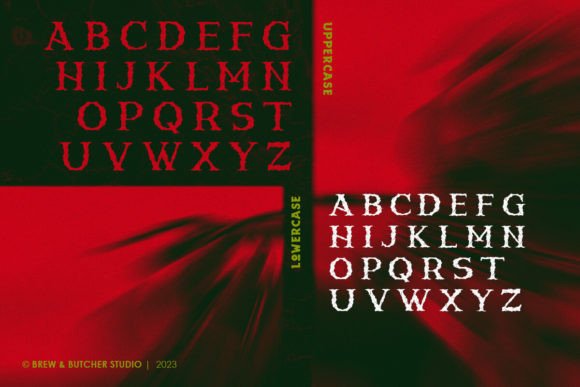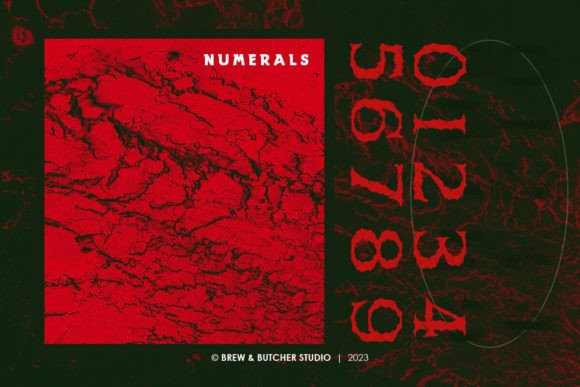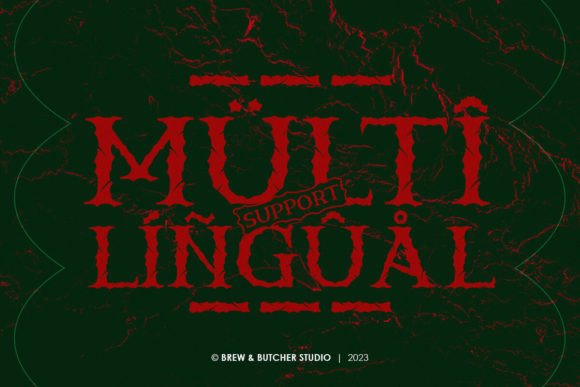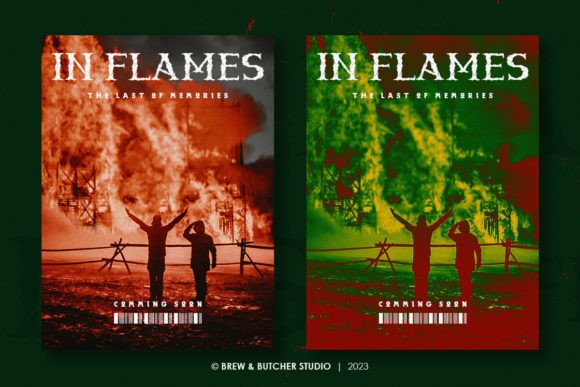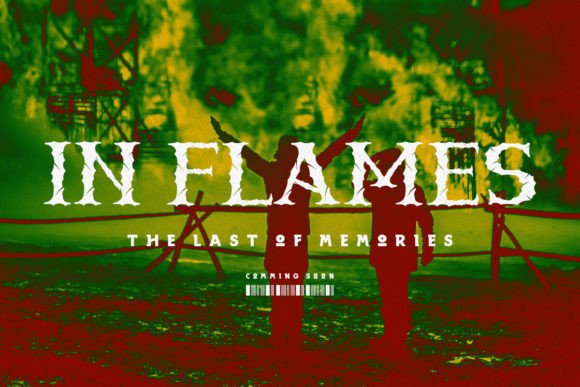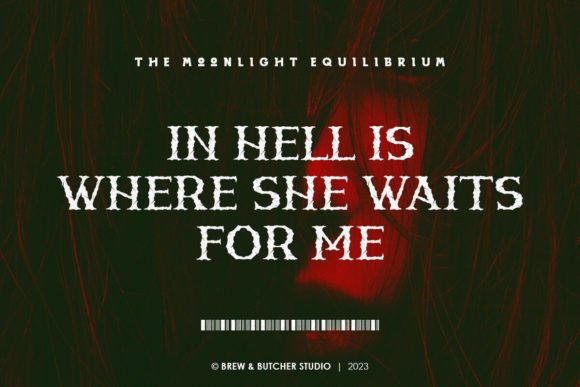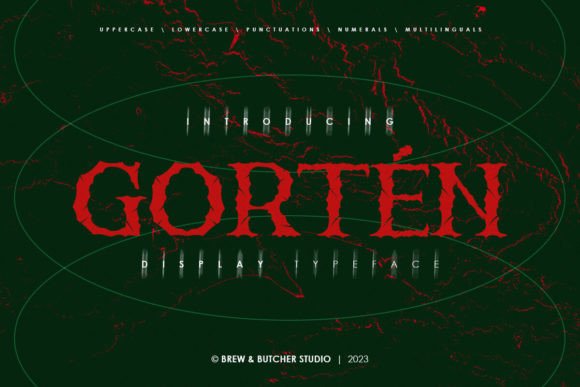
Gorten Font: Elevate Your Creativity with this Unique Display Font
Are you tired of using the same old fonts for your creative projects? Look no further than the Gorten Font, an incredibly unique display font that’s sure to take your designs to the next level. Masterfully designed to become a true favorite, this font has the potential to bring each of your creative ideas to the highest level. In this article, we’ll dive into the world of Gorten Font and explore its features, benefits, and uses.
What is Gorten Font?
Gorten Font is a display font that’s designed to make a statement. Its unique and elegant design makes it perfect for a variety of creative projects, from branding and advertising to packaging and signage. The font is carefully crafted to provide a distinctive look that’s both modern and sophisticated.
Key Features of Gorten Font
- Unique Design: Gorten Font boasts a one-of-a-kind design that’s sure to grab attention. Its elegant lines and curves make it perfect for creating stunning visual effects.
- High Versatility: This font is incredibly versatile and can be used for a wide range of creative projects, from digital designs to print materials.
- Easy to Read: Despite its unique design, Gorten Font is easy to read and understand, making it perfect for use in body text and headlines.
- Scalable: The font is highly scalable, ensuring that it looks great in any size or resolution.
Benefits of Using Gorten Font
So, why should you choose Gorten Font for your creative projects? Here are just a few benefits of using this amazing font:
- Adds Visual Interest: Gorten Font adds a touch of elegance and sophistication to any design, making it perfect for creating visually stunning projects.
- Enhances Brand Identity: With its unique design, Gorten Font can help you create a distinctive brand identity that sets you apart from the competition.
- Boosts Creativity: This font is designed to inspire creativity and help you think outside the box. Its unique design will challenge your creative thinking and push you to new heights.
Who Can Benefit from Gorten Font?
Gorten Font is perfect for a wide range of designers and crafters, including:
- Graphic Designers: Add a touch of elegance to your designs with Gorten Font. Perfect for creating stunning visual effects and branding materials.
- Digital Artists: Take your digital art to the next level with Gorten Font. Its unique design makes it perfect for creating eye-catching artwork.
- Crafters: From scrapbooking to card making, Gorten Font is perfect for adding a personal touch to your crafts.
- Experiment with Different Sizes: Gorten Font looks great in any size, so don’t be afraid to experiment with different sizes and resolutions.
- Pair it with Other Fonts: Gorten Font pairs well with a variety of other fonts, so try combining it with different fonts to create a unique look.
- Use it for Headlines and Titles: Gorten Font is perfect for use in headlines and titles. Its unique design makes it perfect for grabbing attention.
| Font Name | Gorten Font |
| Author | brewandbutcher |
In conclusion, Gorten Font is an incredibly unique display font that’s sure to elevate your creative projects to new heights. Its elegant design, high versatility, and ease of use make it perfect for a wide range of designers and crafters. Whether you’re a graphic designer, digital artist, or crafter, Gorten Font is a must-have font that will inspire creativity and help you bring your ideas to life.